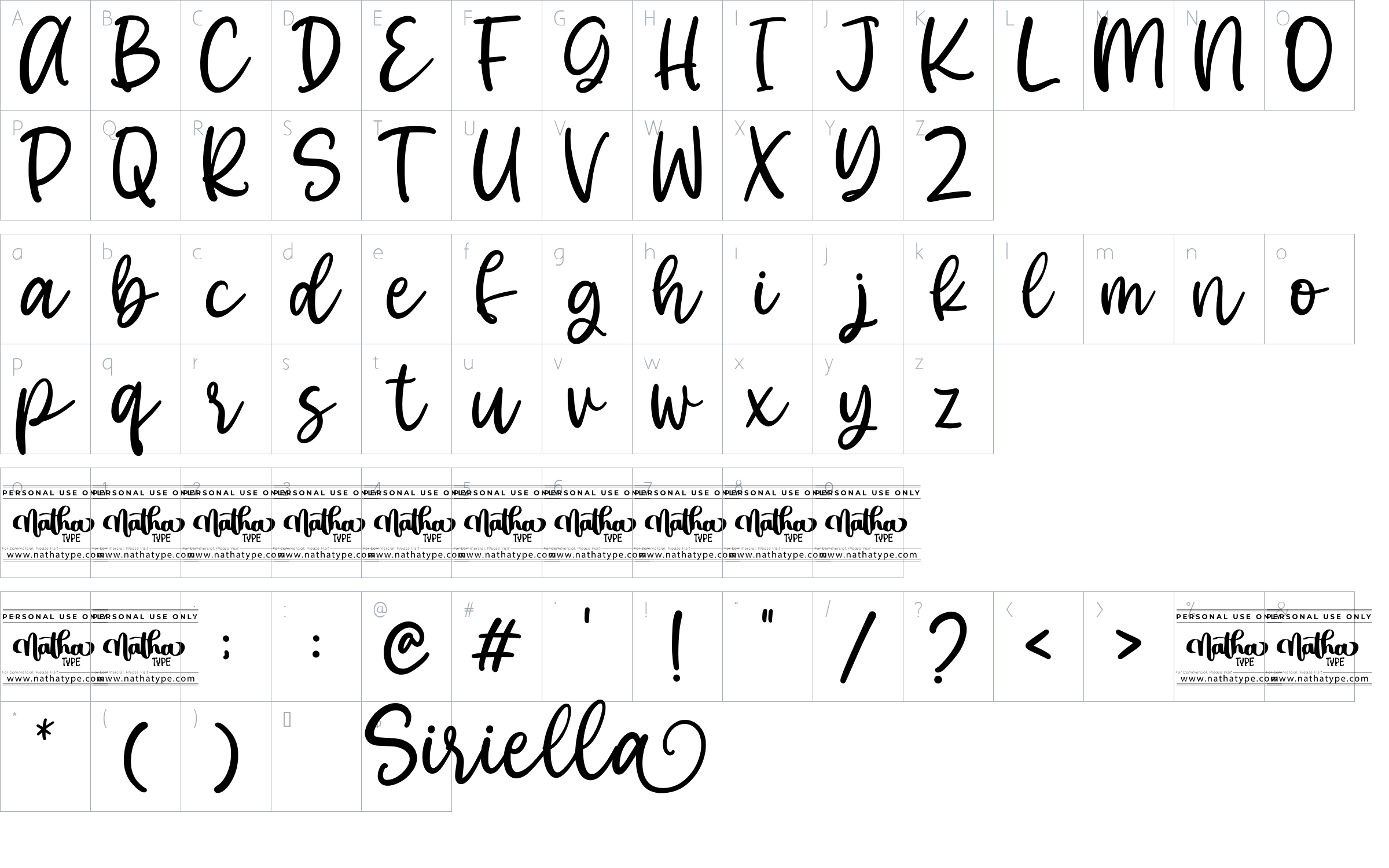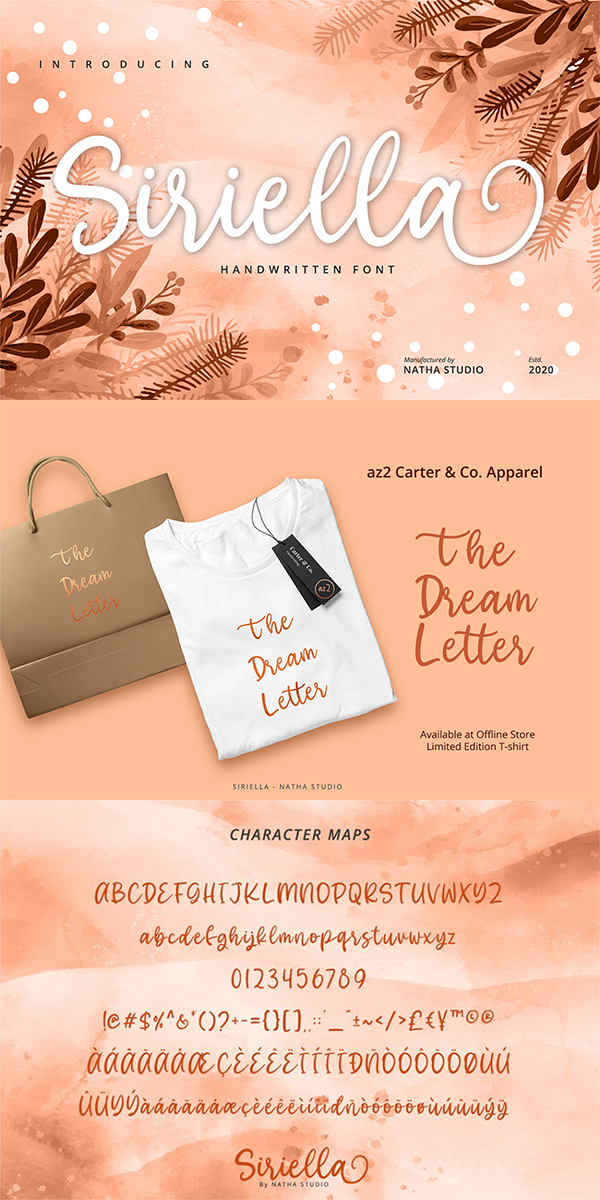
Siriella Font
About Siriella
Siriella is a beautiful handwritten font. It brings an attractive typeface. Made for any professional projects. The font is suitable for any project like logo, t-shirt printing, wedding invitations, and greeting cards to social media quotes, branding, and more! Outstanding in a wide range of contexts.
Featured :
-Standard Ligatures